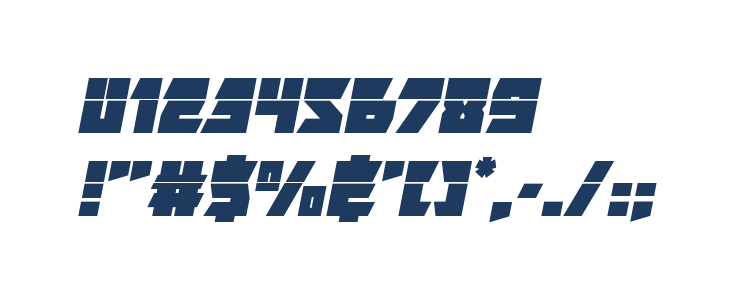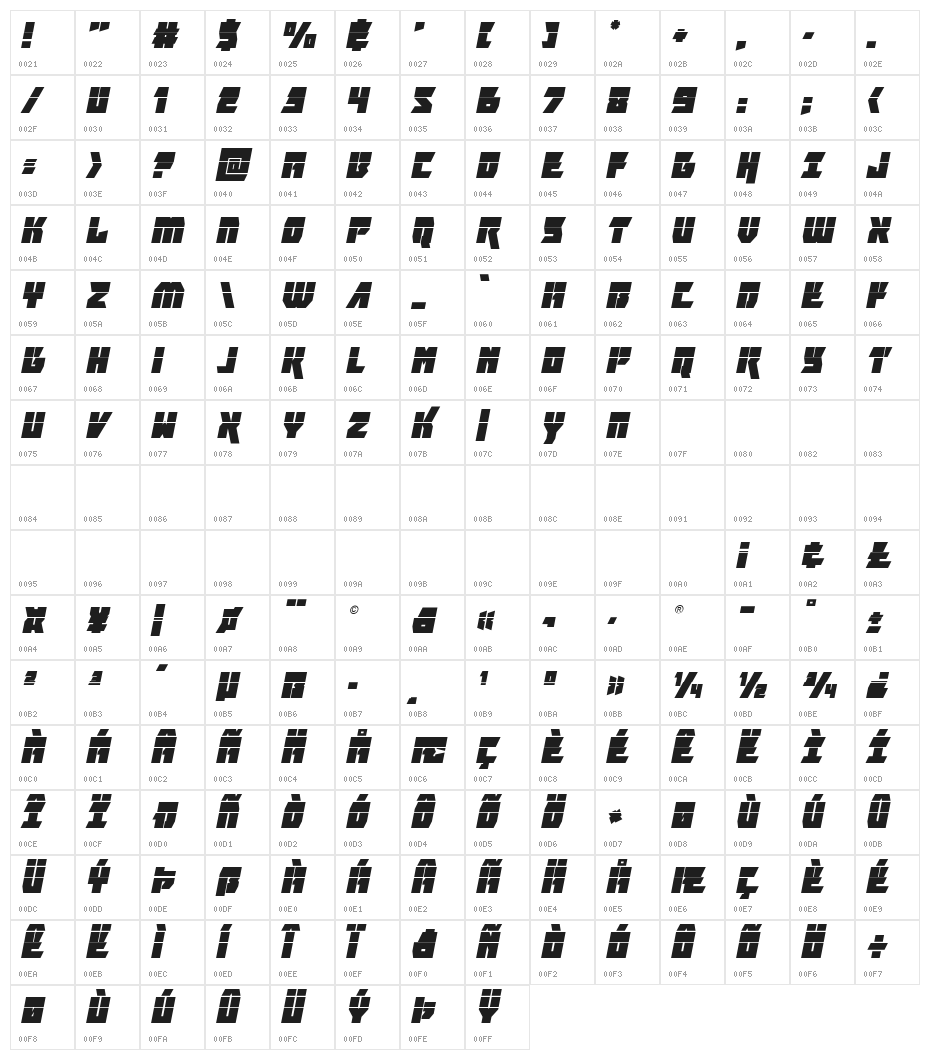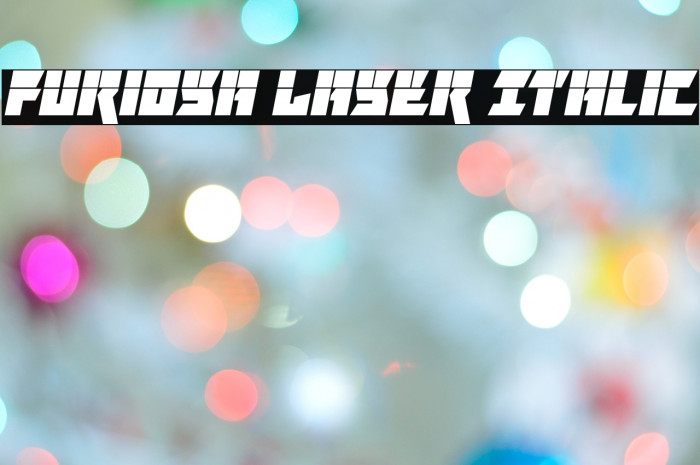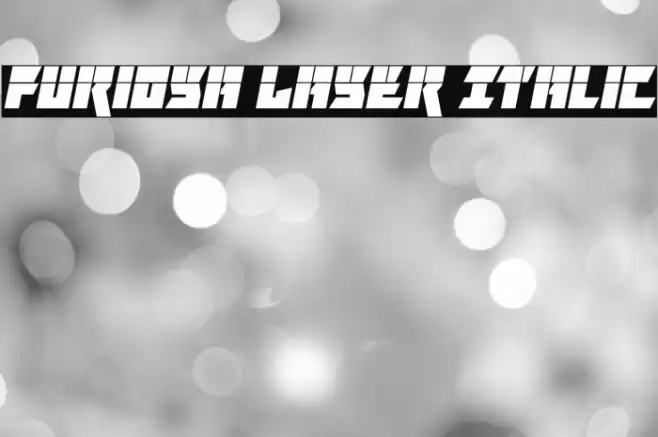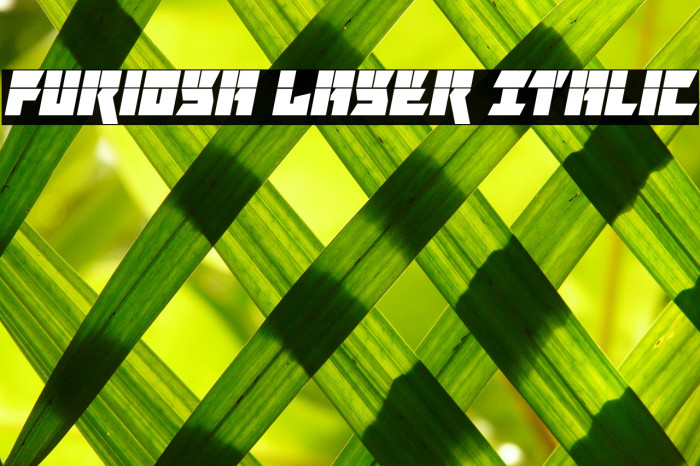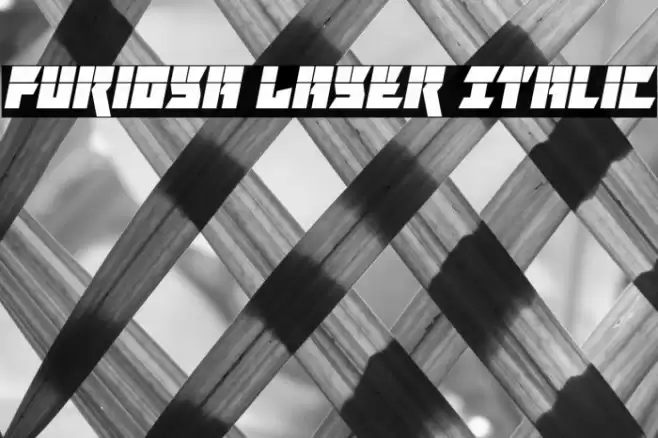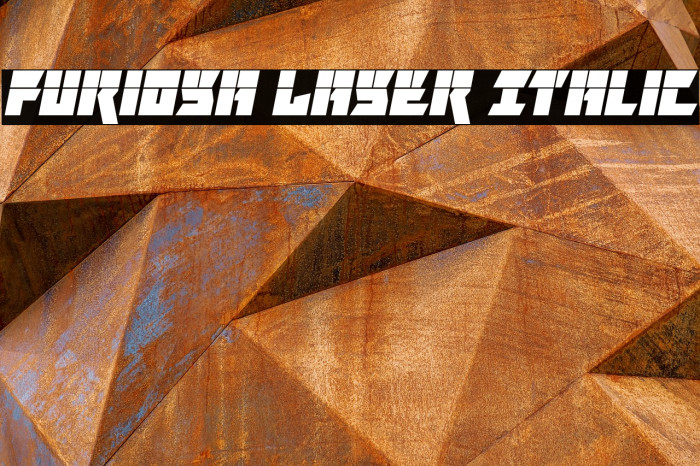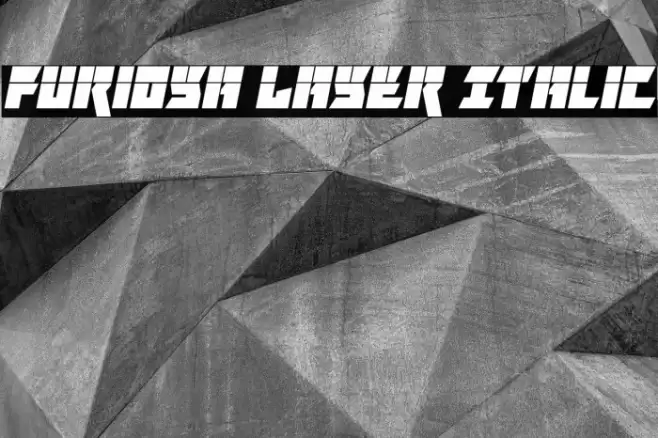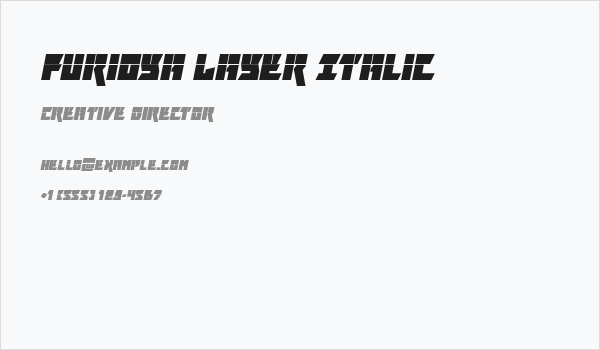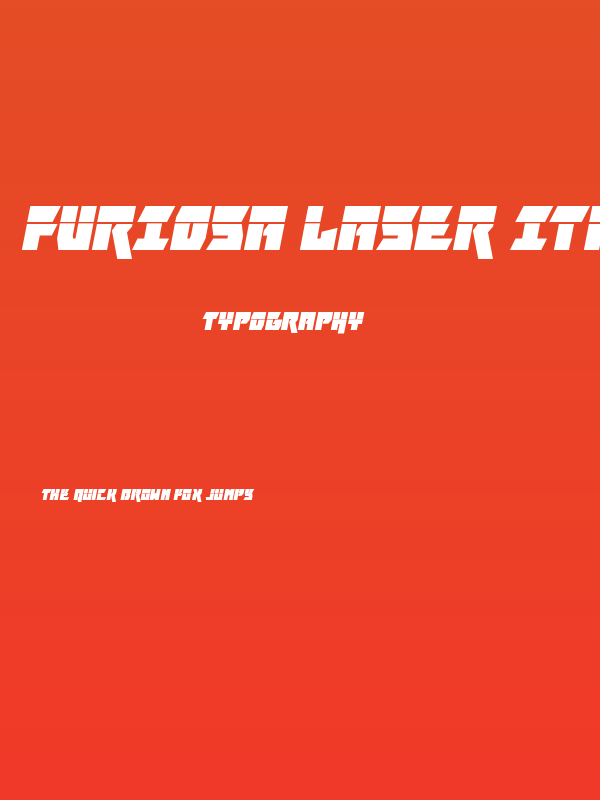
Furiosa Laser Italic Font
Furiosa Laser Italic Description
This font features a bold, futuristic design with sharp angles and geometric shapes. Each character is crafted with a distinct, edgy style that conveys a sense of speed and modernity. The uppercase and lowercase letters maintain a consistent angular theme, while the numbers and special characters complement the overall aesthetic. The italic slant adds a dynamic feel, enhancing its energetic appearance. This font is ideal for projects that require a strong, impactful visual presence, such as technology branding, video game titles, or sci-fi themed designs.
| Overall Style | Futuristic, Modern |
| Proposed Projects | Ideal for technology branding, video game titles, sci-fi themed designs, and modern advertising. |